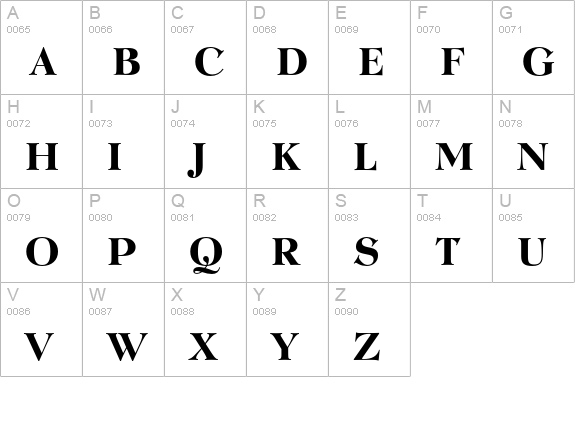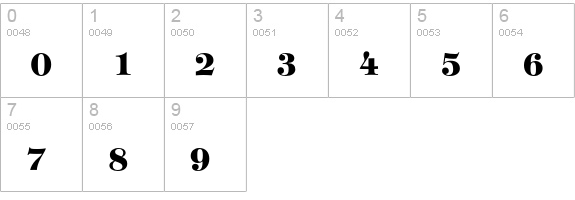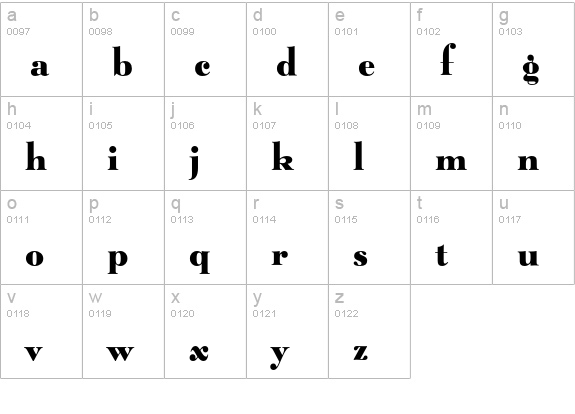
Lucian Bold Font Details
Introducing Lucian Bold font, a striking and versatile typeface that exudes confidence and sophistication. With its bold weight and modern design, Lucian Bold is perfect for making a statement in headlines, titles, and branding projects. The clean lines and sharp edges of this font make it stand out on any design, adding a touch of elegance and professionalism. Best of all, Lucian Bold font is available for free download at FontsMarket.com. Whether you're a designer looking to add a bold and impactful touch to your projects or a business owner aiming to make a strong visual impression, Lucian Bold font is the perfect choice. Download it today and elevate your designs with this sleek and stylish typeface.